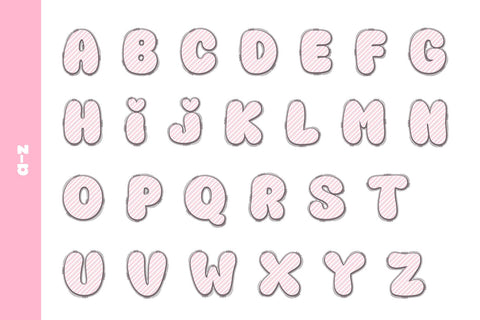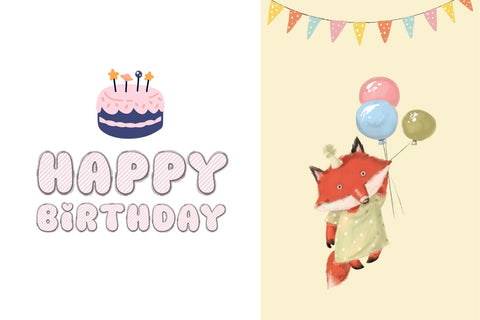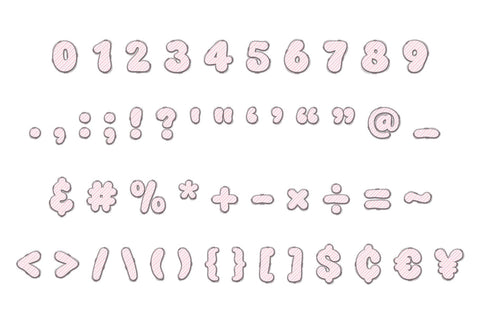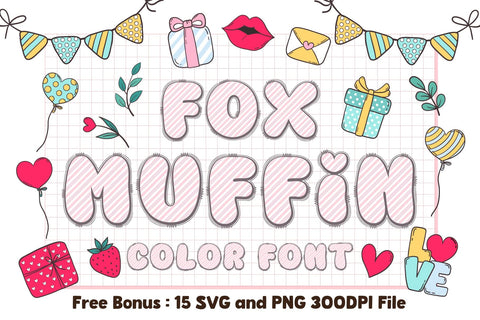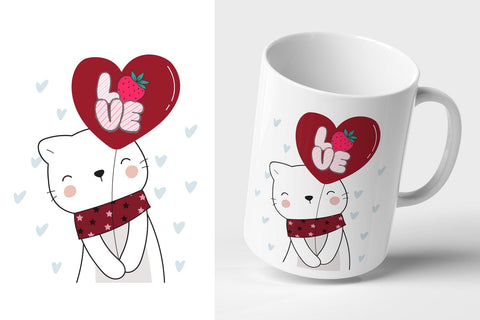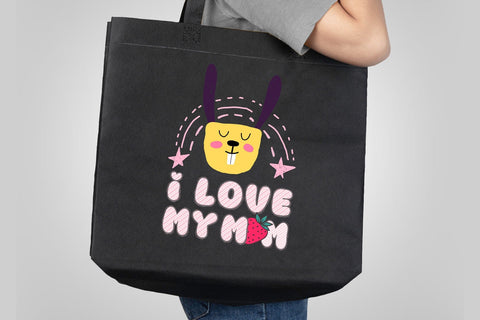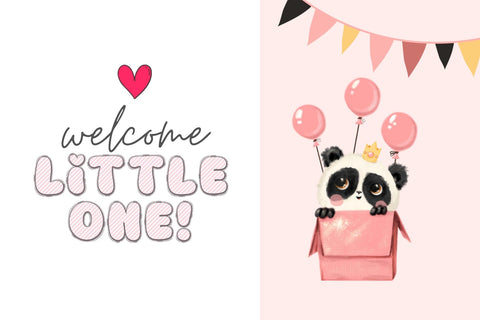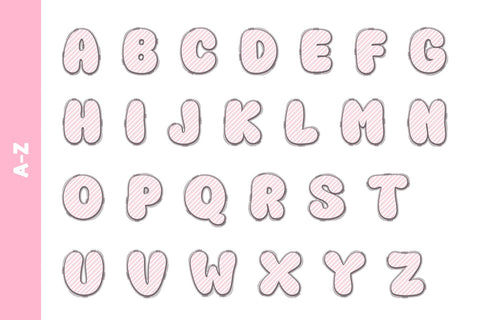
Fox Muffin Color Font
Fox Muffin is a cute and fun color font. This font is your go-to for crafting cute greeting cards that express affection and warmth. Whether you’re a designer, a social media influencer, or someone with a penchant for creative expression. Fall in love with its authentic feel and use it to create gorgeous invitations, beautiful stationary art, eye-catching social media posts, and cute greeting cards. Add this beautiful font to each of your creative ideas, and notice how it makes them stand out.